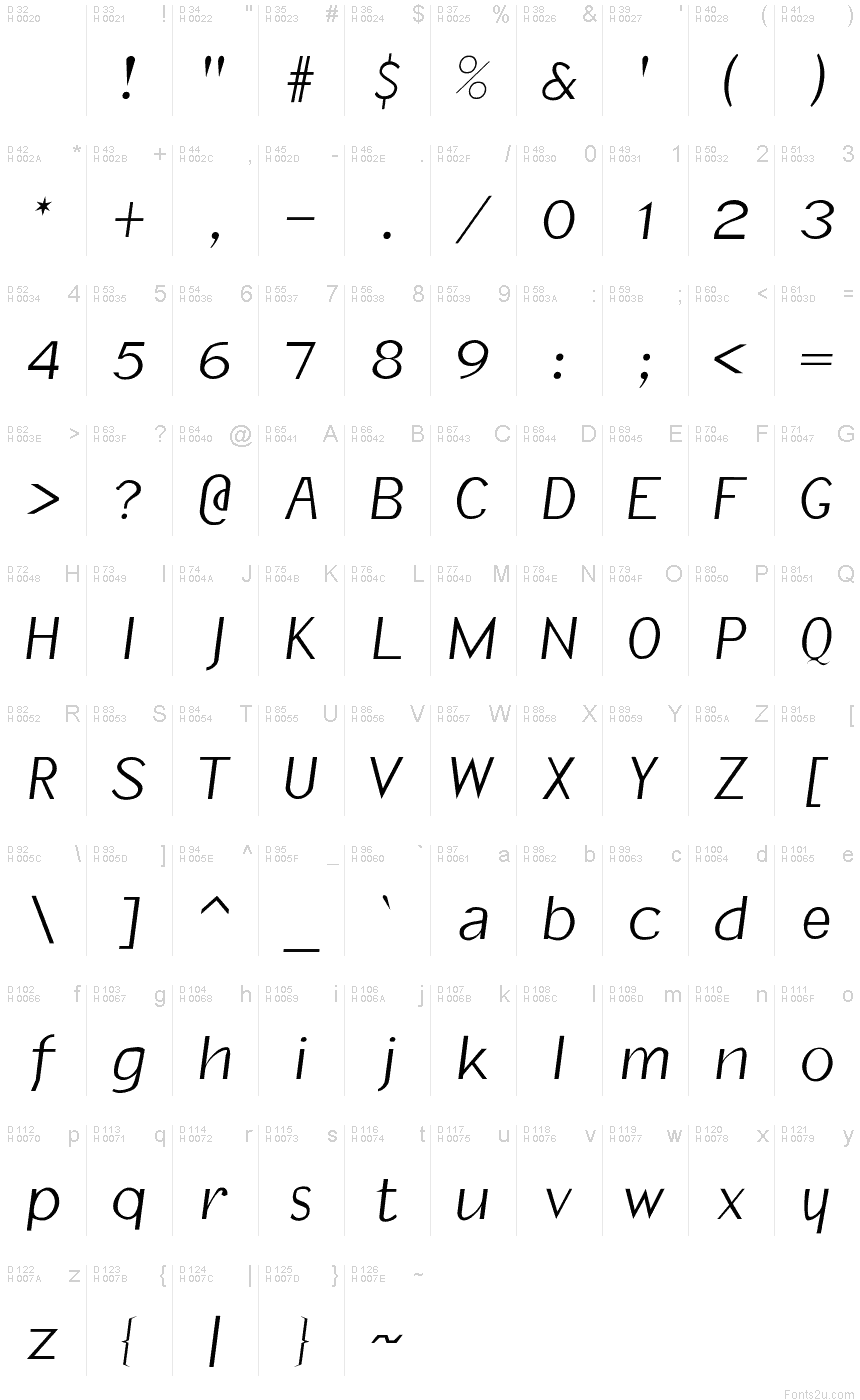
RSSlantInf
RS Slant Inf, is a free slanted sans serif font with a cool, stripped-back modernist feel. The letters lean hard and stay light on their feet, mixing long smooth curves with narrow straight strokes so the overall texture feels swift, airy, and a little architectural.
That makes it a natural fit for fashion graphics, tech branding, magazine cover lines, title cards, and poster headlines where a free font can suggest motion without turning flashy. It also works well for wordmarks and short interface labels, since the pronounced slant gives even brief bits of text a directional push.